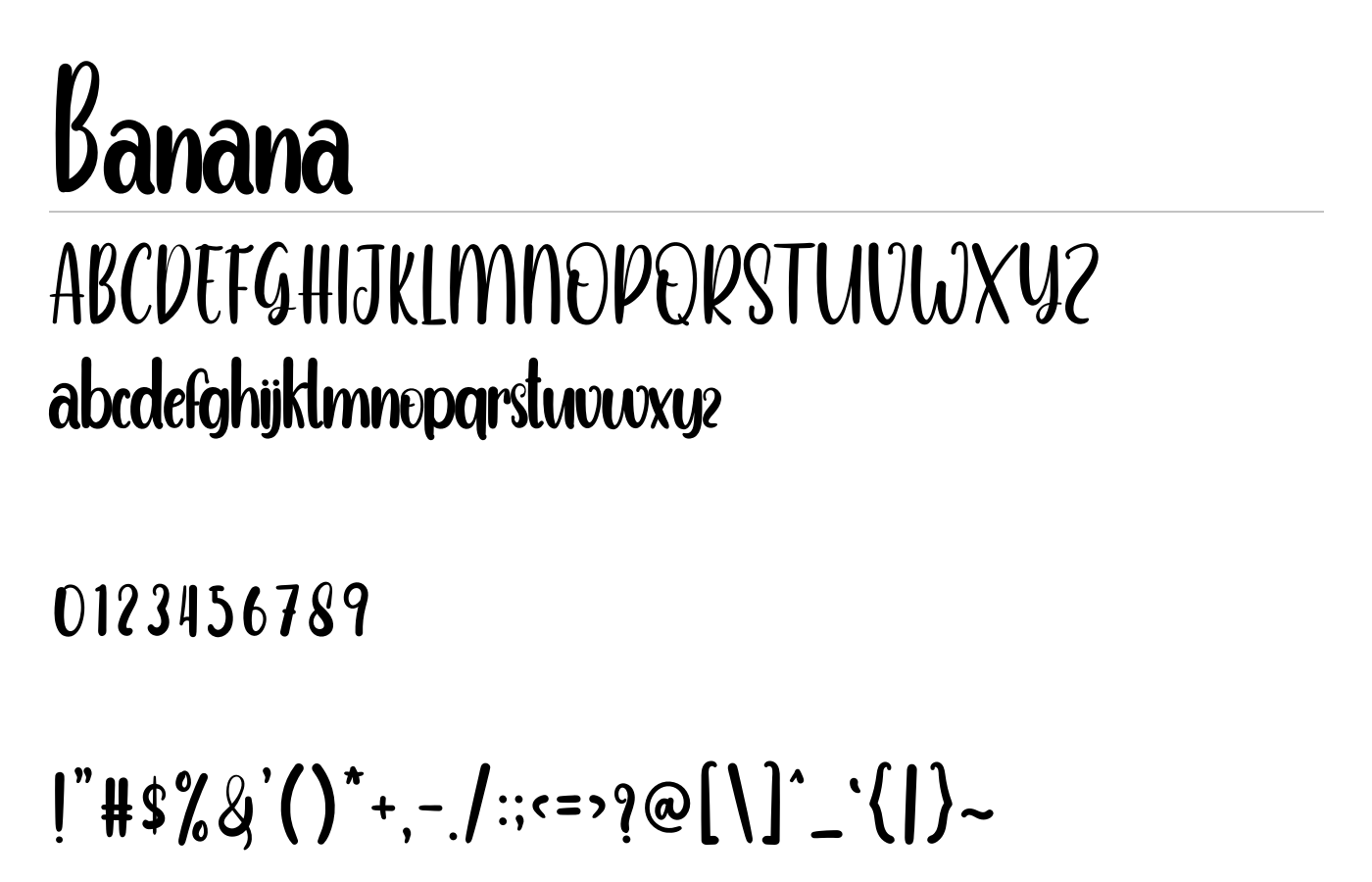
Banana Font is a playful and casual handwritten typeface with a tall, slightly condensed structure and moderate contrast in stroke weight. Its rounded, quirky letterforms convey a friendly and informal vibe, making it perfect for creative projects that seek a fun and approachable personality. This font works well in headlines, logos, and packaging where a unique, lively touch is desired.
Banana Font
About Banana Font